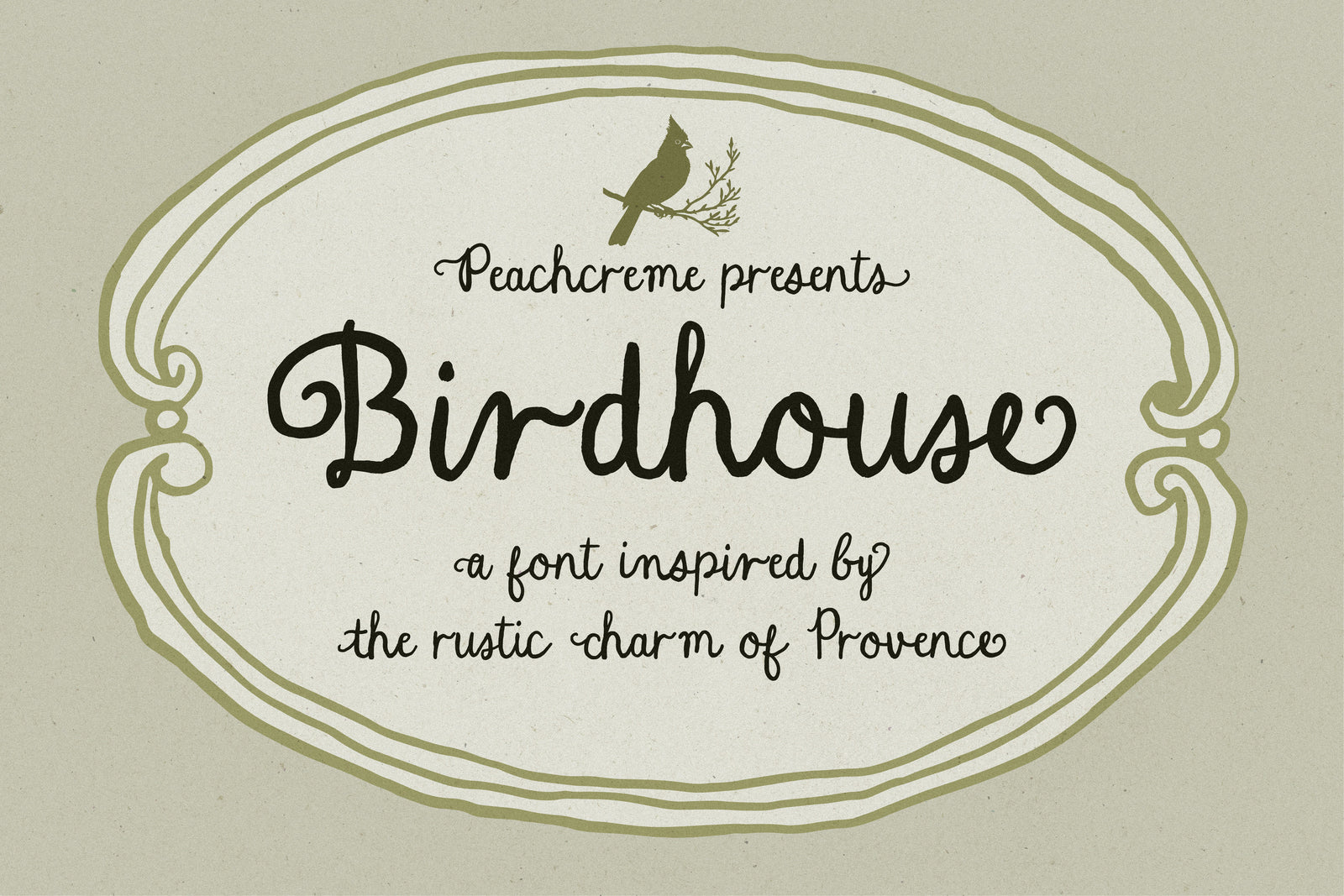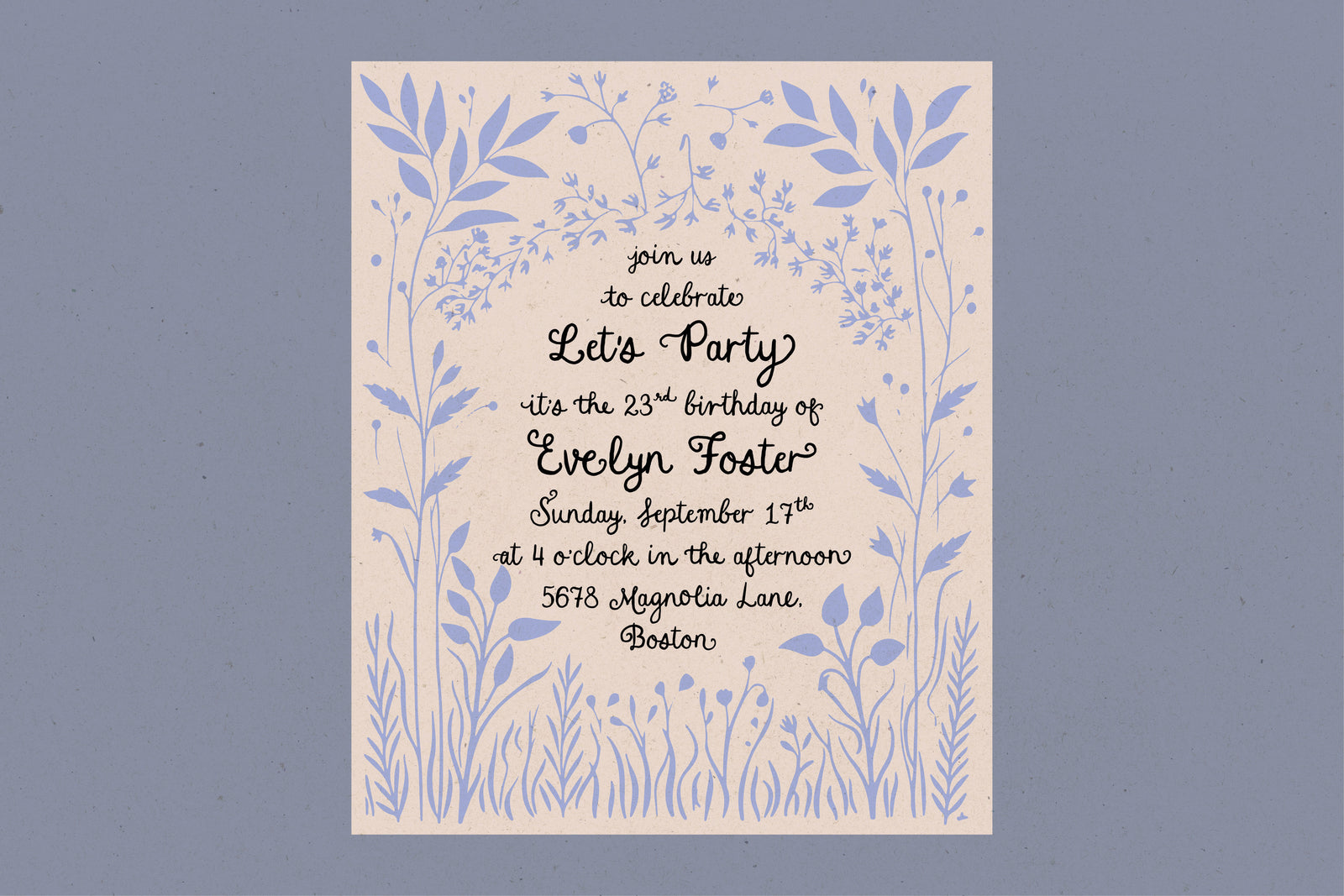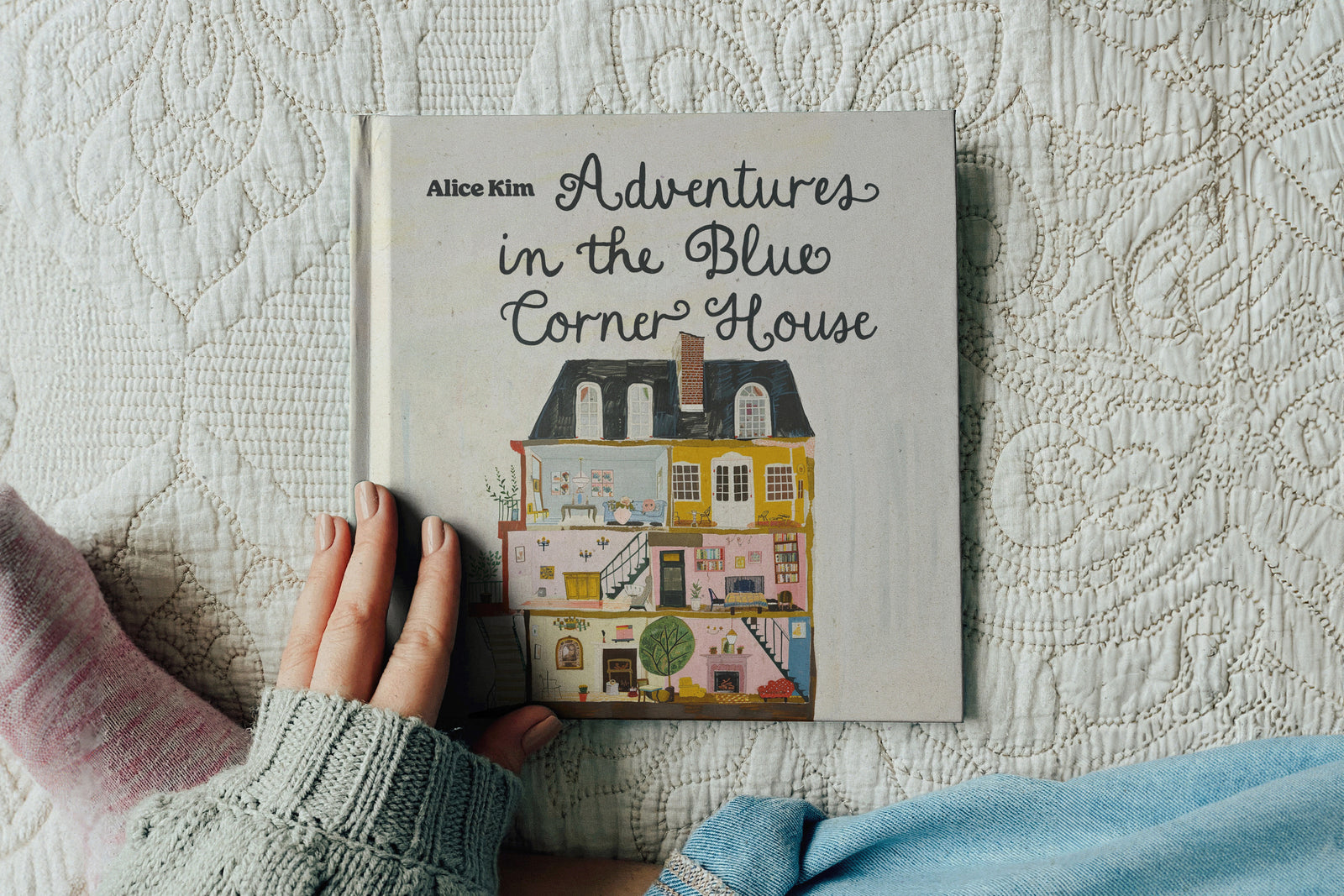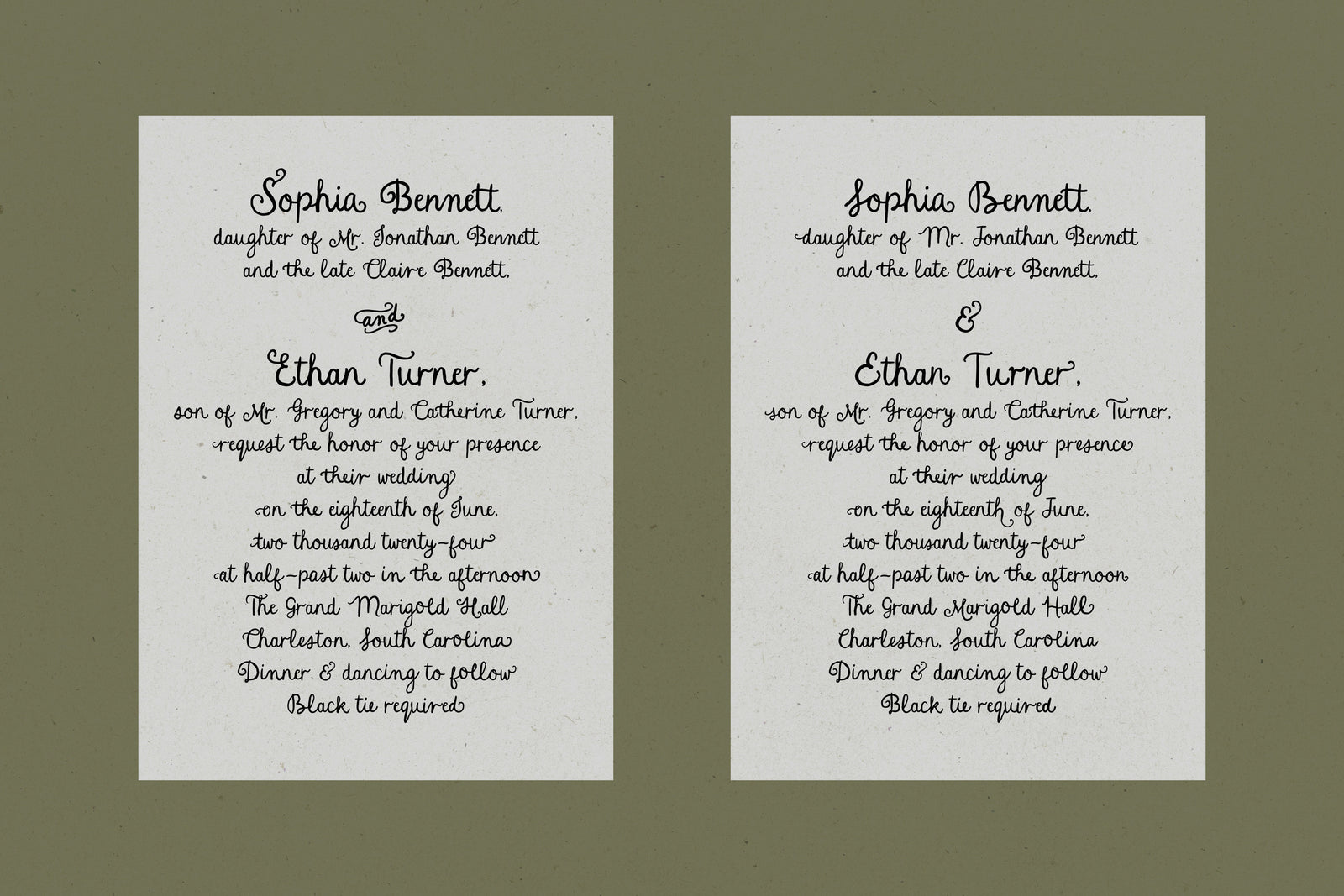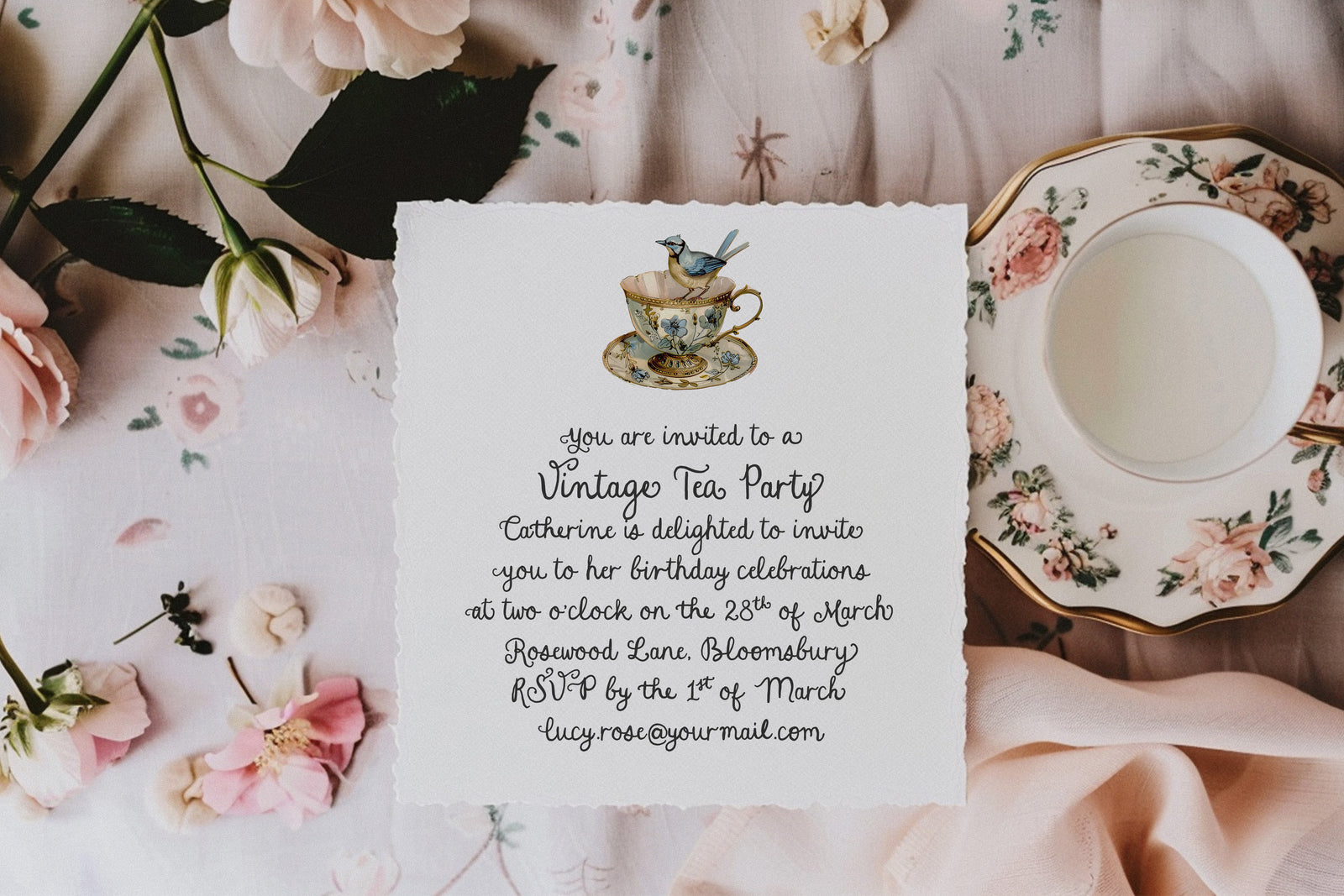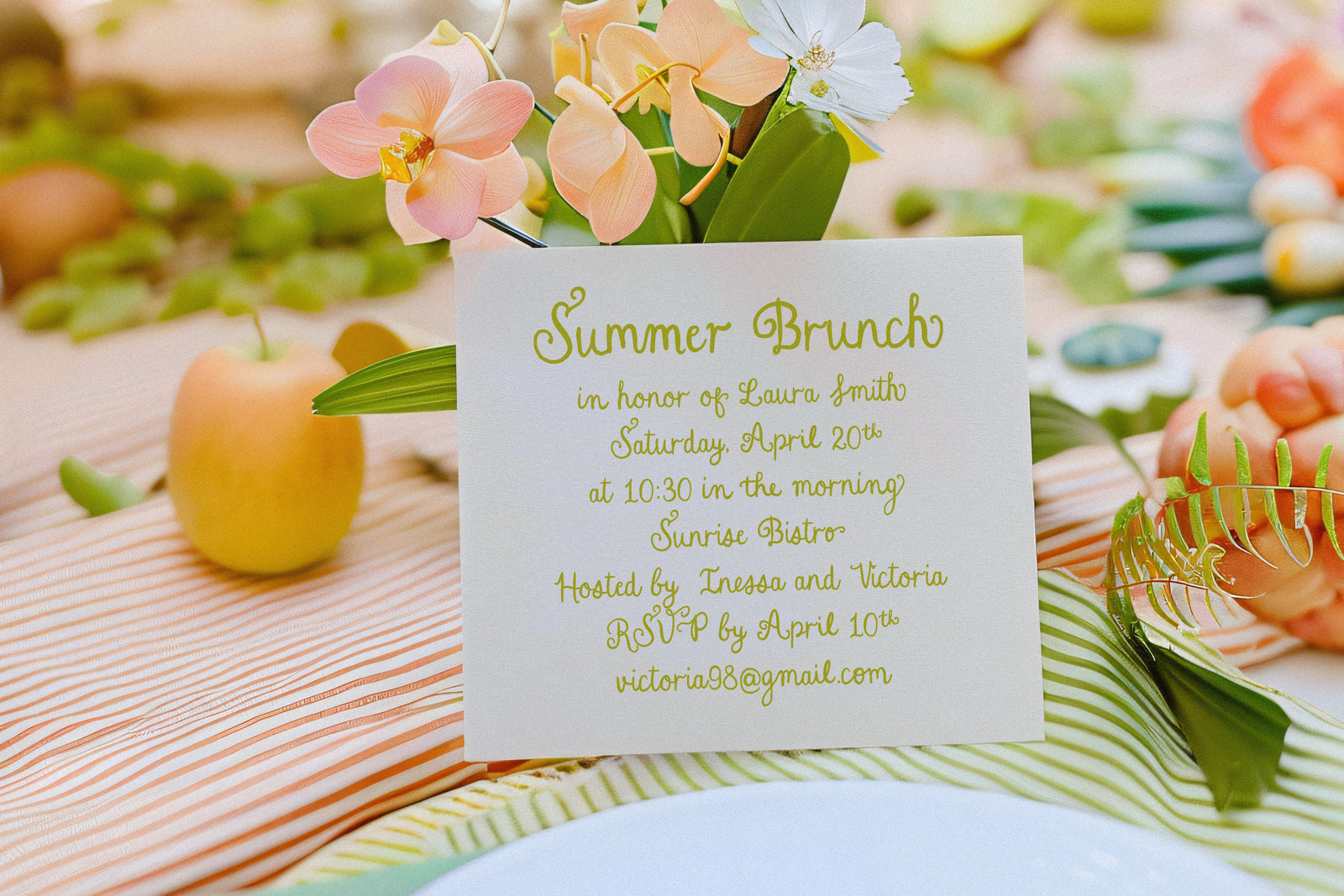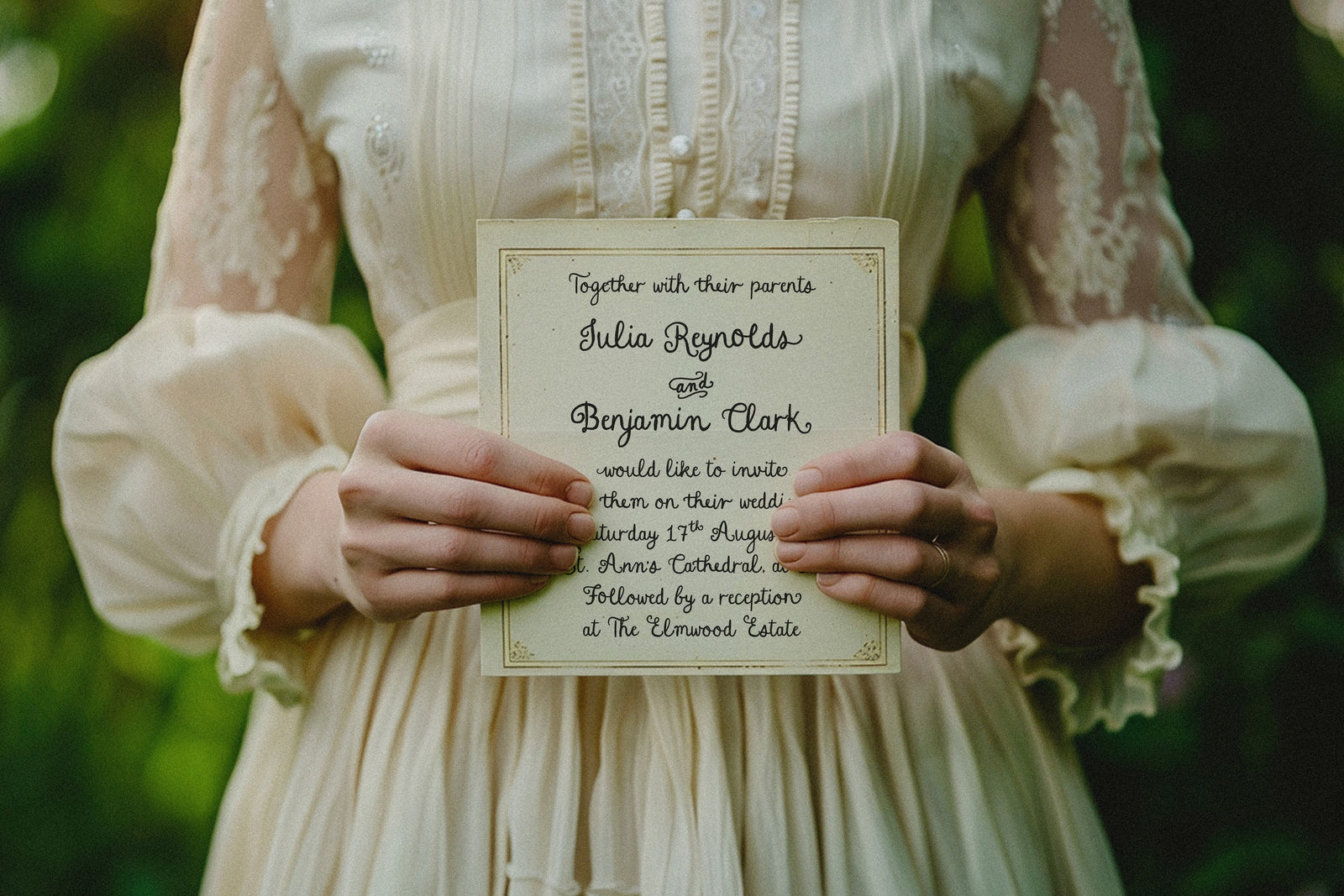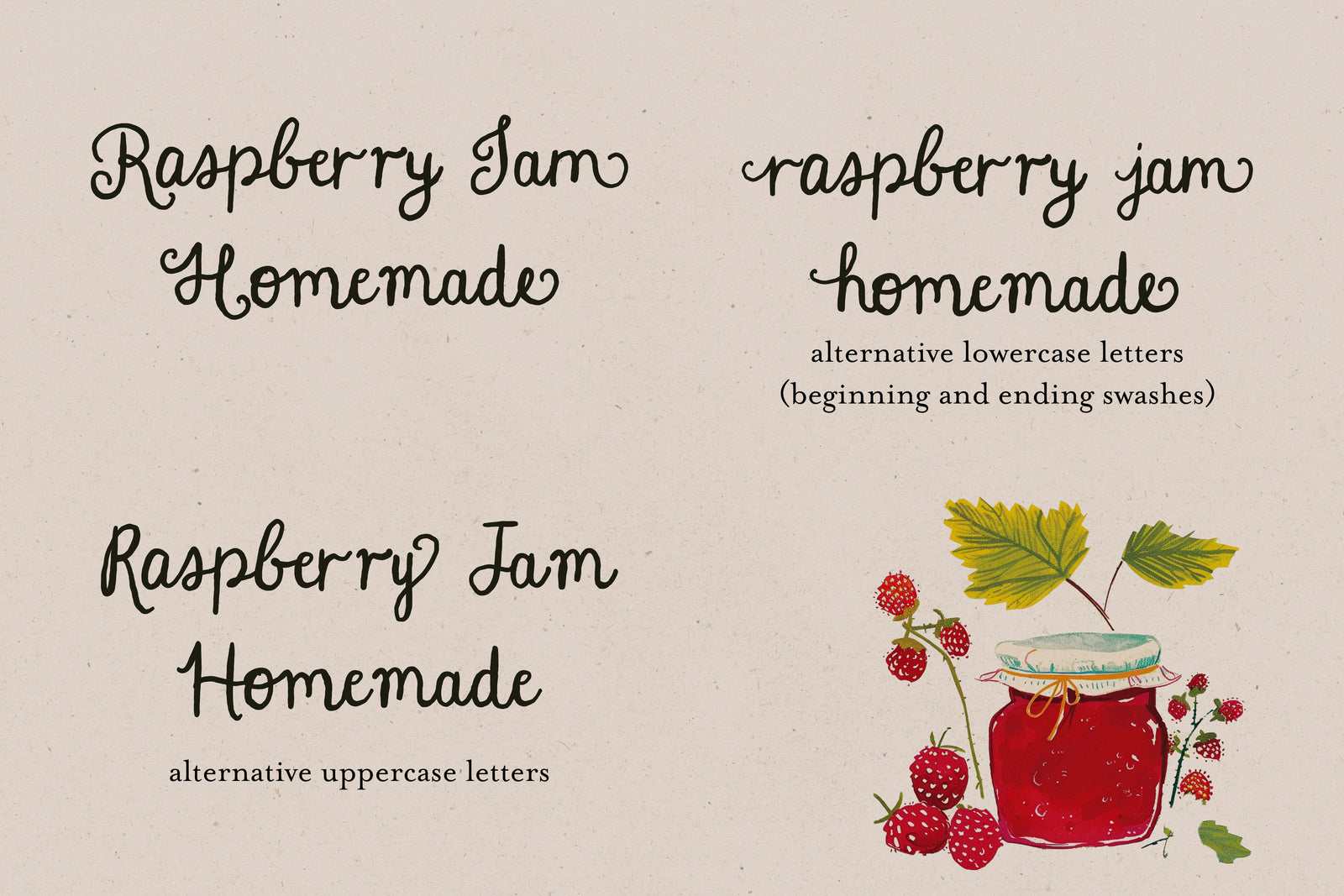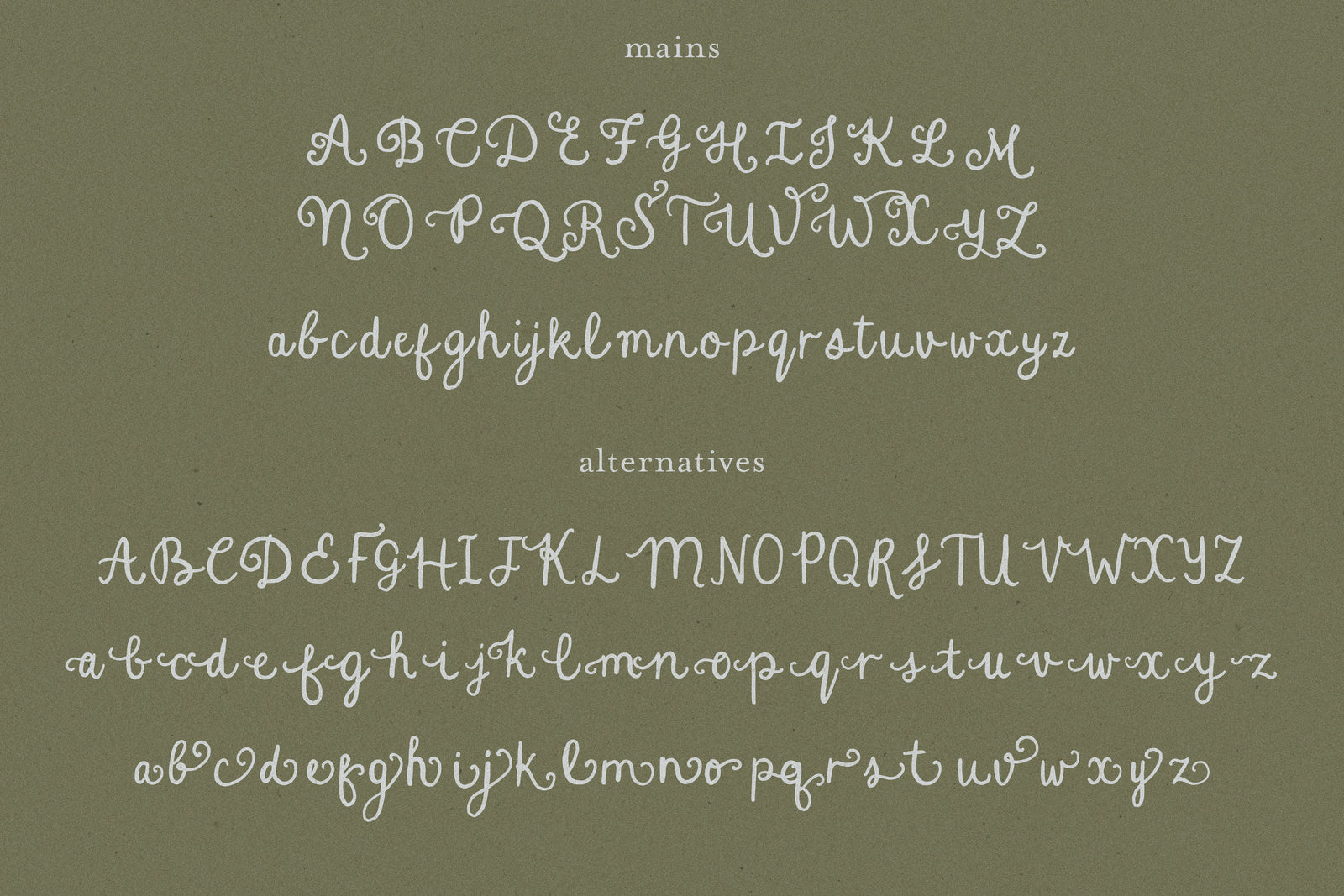
Birdhouse // Handwritten font
'Birdhouse' is a handwritten font that's all about casual charm with a Provençal twist. Uppercases come with a little flair and a set of simpler alternatives, so you've got options whether you're going for something fancy or keeping it low-key.
Lowercases have swashes at the beginning and end, perfect for adding a personal touch. They're all hand-drawn, which means they've each got their own thing going on.